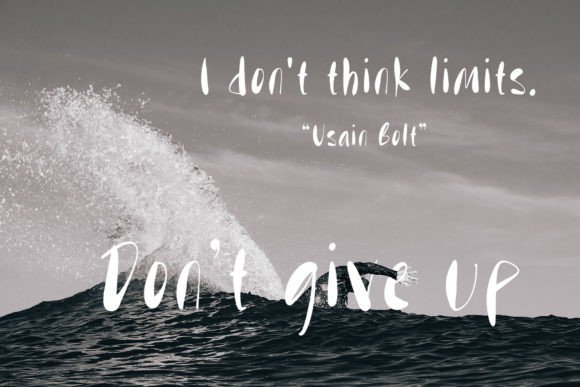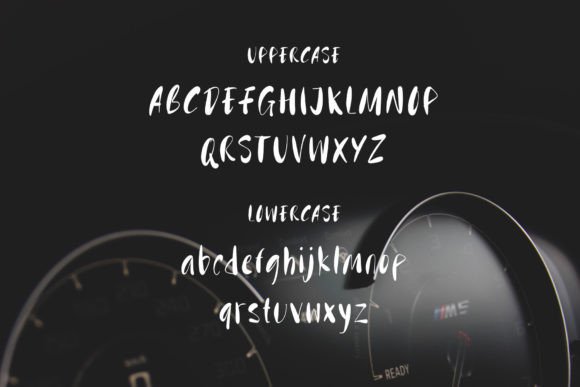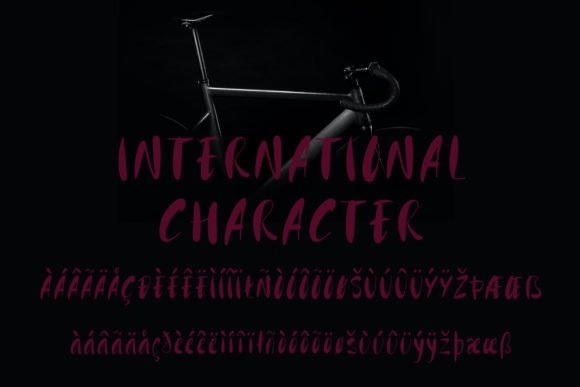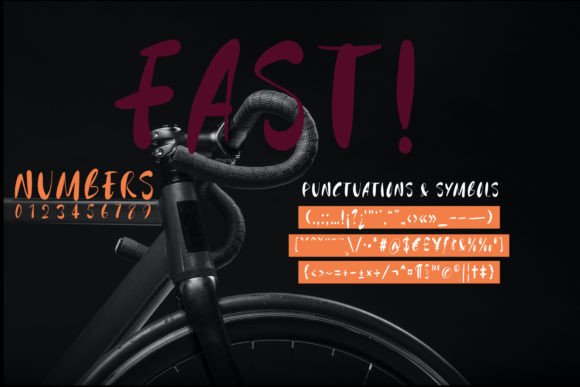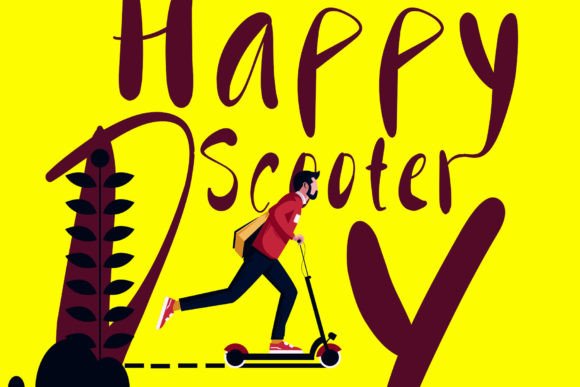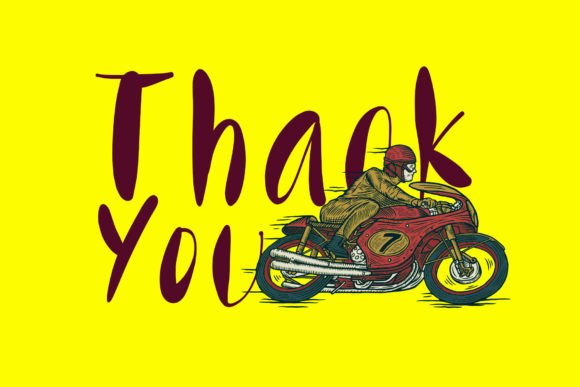
Introduction to Fast Ink Font
As creatives, we’ve all experienced that moment of pure inspiration, where ideas flow effortlessly and art seems to come alive. For us, it was the mesmerizing dance of ink on canvas, a symphony of movement and energy that sparked the creation of the Fast Ink Font. This display font is more than just a design resource – it’s a reflection of the dynamic spirit that fuels our imagination.
With its high-quality design and transparent background, Fast Ink Font is perfect for designers seeking a bold and modern touch. Whether you’re working on a free download project or a paid commission, this font is sure to elevate your creative project and leave a lasting impression. And the best part? It’s free to download and use, making it an invaluable resource for designers of all levels.
Key Features of Fast Ink Font
- High-quality design resource with a modern and sleek aesthetic, perfect for creative projects.
- Features a transparent background, allowing for seamless integration into various design elements and backgrounds.
- Designed with a high resolution of 300 DPI, ensuring crisp and clear text display, ideal for print and digital applications.
- Includes a range of characters, including uppercase and lowercase letters, numbers, and punctuation marks, making it a versatile font for various creative projects.
- Easy to customize and modify, allowing designers to create unique and personalized designs with the Fast Ink Font.
Honest Review: Fast Ink Font
As a designer, I’m always on the lookout for high-quality design resources to elevate my creative projects. I recently stumbled upon the Fast Ink Font, and I must say, it’s been a game-changer. With its sleek and modern aesthetic, it’s perfect for adding a touch of sophistication to any design.
- ✨ The font is incredibly versatile and can be used for a wide range of creative projects, from logos to brochures.
- ✨ The transparent background makes it easy to customize and integrate with any design element.
However, I do have to mention a few limitations:
- ⚠️ The font may not be suitable for certain design styles, such as minimalist or vintage-inspired projects.
- ⚠️ Some users may find the font to be a bit too bold or overpowering.
Overall, I’m thoroughly impressed with the Fast Ink Font. Its high-quality design and versatility make it a valuable addition to any designer’s toolkit. Whether you’re working on a logo, brochure, or other creative project, this font is definitely worth checking out.
Tips for Getting the Most Out of Fast Ink Font
Use Fast Ink Font on a transparent background to create a high-quality design resource.
Fast Ink Font is ideal for:
Logo design
Infographics
Brochures
Business cards
Alternatives to Fast Ink Font
Montserrat is a high-quality sans-serif font ideal for design projects requiring a clean and modern aesthetic. It’s particularly suited for creative projects with a focus on typography. Montserrat is available for free download and features a transparent background, making it an excellent alternative to Fast Ink Font.
Montserrat compares favorably to Fast Ink Font in terms of its versatility and wide range of applications, from signage to digital interfaces. While both fonts share a similar modern feel, Montserrat has a more extensive character set and better support for various languages.
Lato is a high-quality, open-source font designed for use in digital design projects. Its clean and elegant lines make it perfect for creative projects that require a professional touch. Lato is available for free download and features a transparent background, making it a suitable substitute for Fast Ink Font.
Can I modify the Fast Ink Font for my specific design needs?
While Fast Ink Font is a high-quality design resource, it is not designed to be modified. However, you can use the font in conjunction with other design elements to create a unique look for your project. Additionally, you can experiment with font styles and sizes to achieve the desired effect.